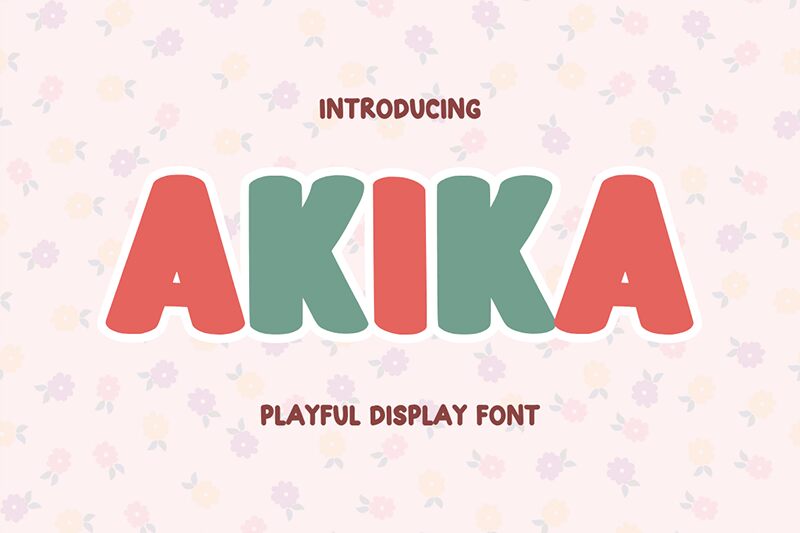
Akika font by Muhammad Afif of MinimalistEyes is a retro-inspired cartoon display font with a bold aesthetic and solid presence. Each character carries a rounded shape derived from basic geometry which gives the text its uniform structure. The smooth lines combined with thick strokes create a powerful text appearance wherever this font is used.
This bold display typeface can be freely used for designing posters, flyers, magazines, and book covers. The stylish alphabet can also feature in website headers, social media ads, printed advertisements, or visual identity projects like logo design or business card designs.